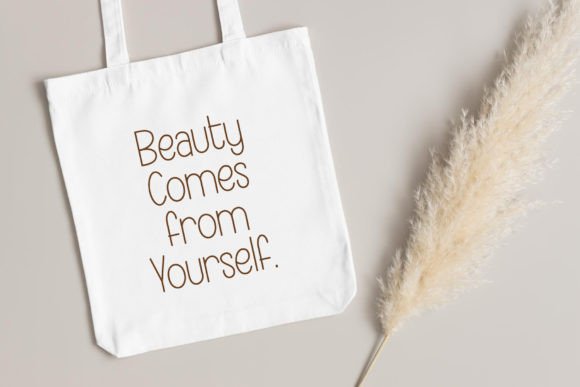
Sweet Mango Font
Sweet Mango is a modern sans serif font. This font is perfect for logos, greeting cards, package design, brand identity, craft designs, any DIY projects, book titles, wedding invitations, packaging, and more.